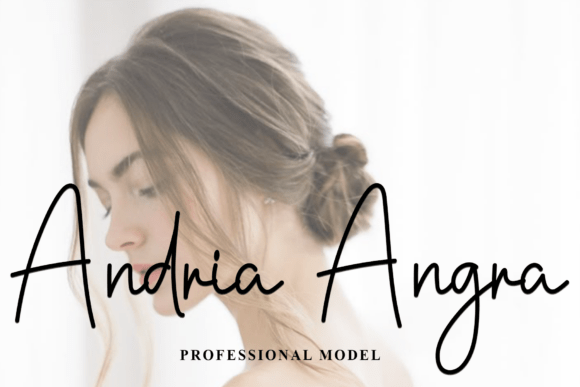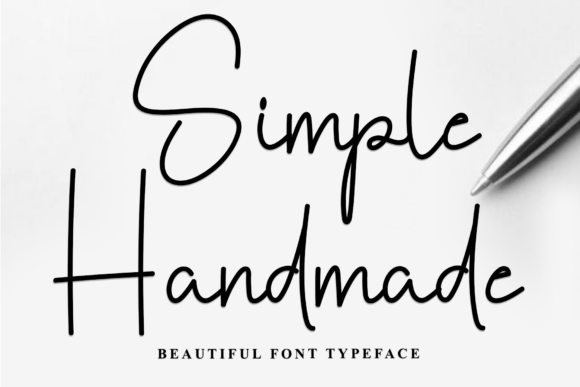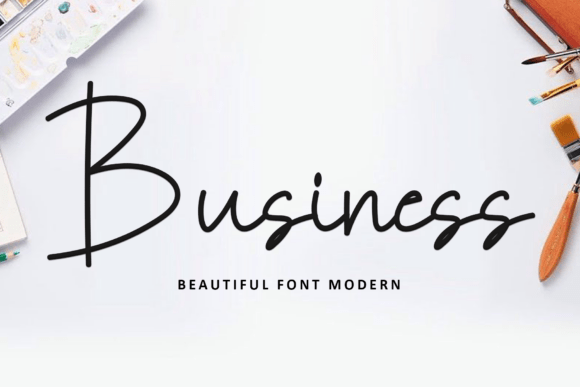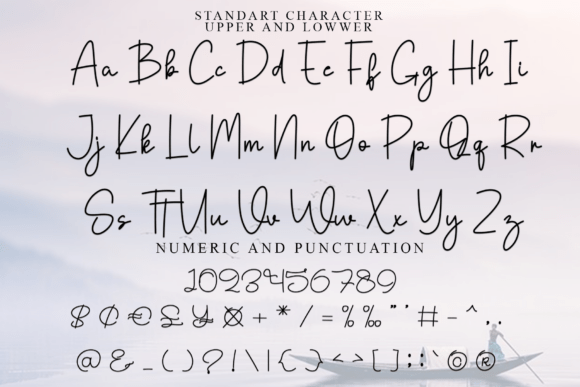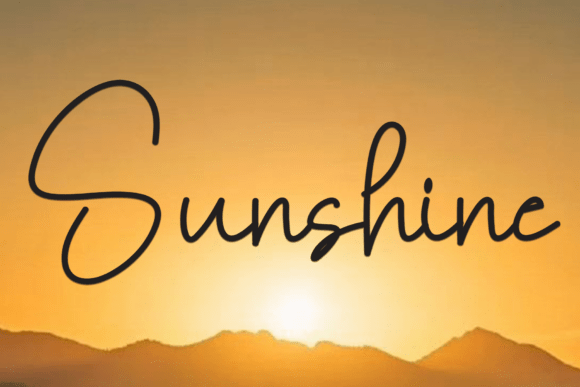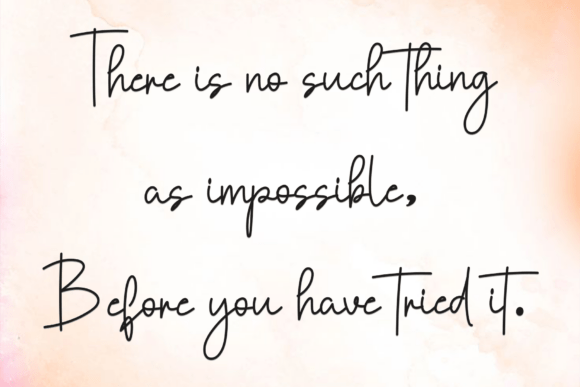
The Power of Collection Signature Font: Elevate Your Designs with Elegance
Have you ever been in the middle of a design project, and suddenly, you’re stuck on finding the perfect font? I recall a recent experience where a client requested a unique, eye-catching font for their branding project. After hours of searching, I stumbled upon Collection Signature Font, and it completely transformed my design. In this article, I’ll share my journey with this beautiful font, its features, and how you can make the most of it in your creative projects.
A Personal Review: What I Love About Collection Signature Font
Collection Signature Font has been a game-changer for me, and here’s why:
- ✨ Unique and Eye-Catching: The soft, distinctive strokes of this font give it a special character that sets it apart from more traditional fonts.
- ✅ Versatile: With various characters, Collection Signature Font is perfect for a wide range of design projects, crafts, and creative works.
- 🌟 Natural and Appealing: This font style has a natural, effortless charm that makes it appealing to many audiences across different artistic and creative fields.
While Collection Signature Font has been a delight to work with, there are a few minor quirks to be aware of:
- 🤔 Glyph Limitations: Some users may find that the font’s glyph library could be more extensive. However, the existing glyphs are well-designed and offer a great deal of creative flexibility.
- ⚠️ Kerning Issues: As with any font, you may encounter kerning issues in certain applications or when using specific character combinations. However, these issues can usually be easily addressed with manual adjustments.
Collection Signature Font was designed with the intention of creating a unique, eye-catching font that would add a touch of elegance to any design project. The designer aimed to craft a font that would be both versatile and natural, making it perfect for a wide range of creative applications. While the designer’s exact inspiration may be unknown, it’s clear that Collection Signature Font has been crafted with care and attention to detail.
| What is Collection Signature Font? | Collection Signature Font is a beautiful, eye-catching font designed with a soft, unique touch. |